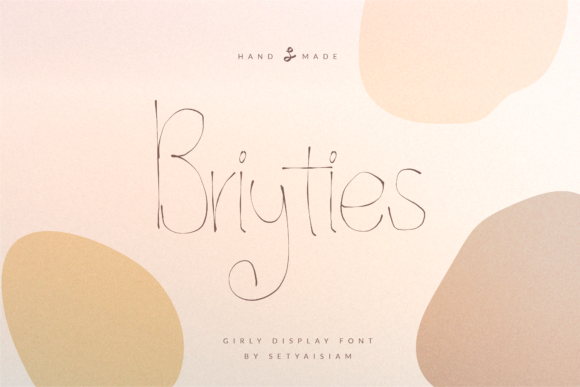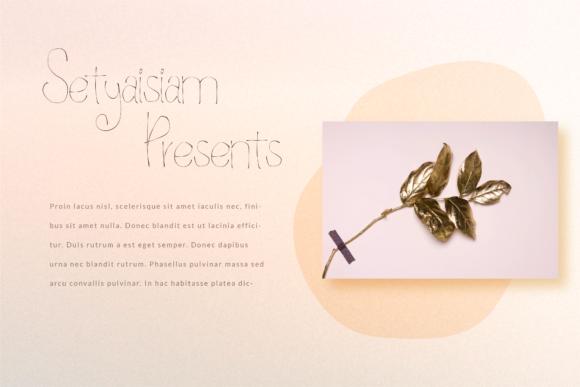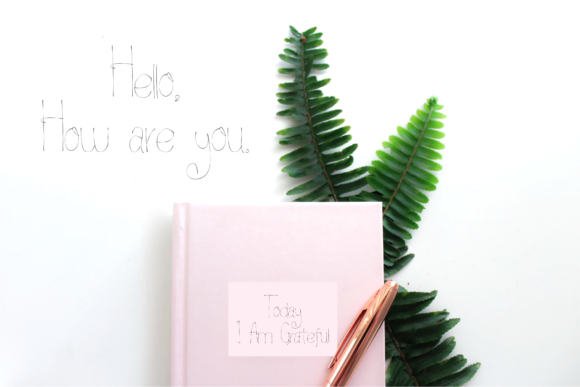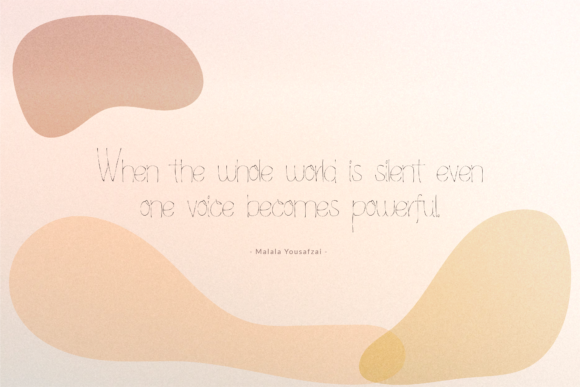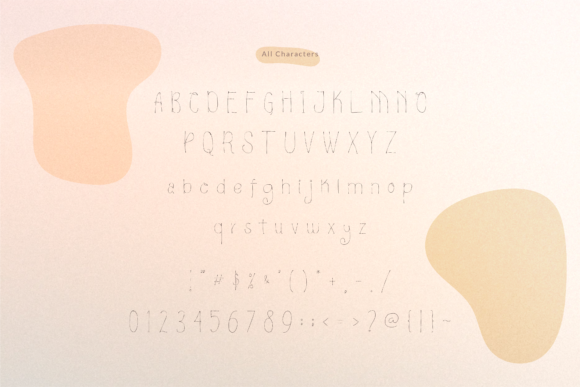
Briyties Font
About Briyties Font
Briyties is a charming and delicate brushed handwritten font that exudes sweetness and authenticity. It has a natural and organic look, resembling hand-drawn brush strokes, which adds a personal and realistic feel to your designs. This font is crafted to evoke a sense of warmth and approachability, making it a perfect choice for projects that require a touch of personalization and human connection.
With Briyties, your designs will have a genuine and handcrafted appearance, setting them apart from more conventional and sterile typefaces. The font’s brushed style creates a soft and smooth texture, giving your designs a warm and inviting feel. It works wonderfully for a variety of creative projects, such as greeting cards, invitations, quotes, social media graphics, and more, where you want to convey a sense of authenticity and emotion.
The delicate and graceful letterforms of Briyties make it an excellent choice for designs that require a touch of elegance and sophistication. Whether you’re designing wedding invitations, branding materials, or stationery, this font can elevate your work with its gentle and refined appearance.
The beauty of Briyties lies in its ability to add a personal and realistic touch to your designs. It brings a sense of intimacy and human touch that resonates with your audience and creates a connection. The font’s hand-drawn nature also makes it ideal for crafty DIY projects and handmade goods, where you want to showcase the artistry and uniqueness of your creations.
Despite its delicacy, Briyties is still legible and easy to read, making it a versatile font that works well in various contexts. It strikes a perfect balance between artistic expression and practicality, allowing you to create visually appealing designs without sacrificing readability.
In conclusion, Briyties is a sweet and delicate brushed handwritten font that adds a personal and realistic feel to your designs. Its authentic and handcrafted appearance evokes warmth and approachability, making it suitable for a wide range of projects. Whether you’re designing for personal or commercial purposes, Briyties can bring a touch of elegance and intimacy to your creations, leaving a lasting impression on your audience.